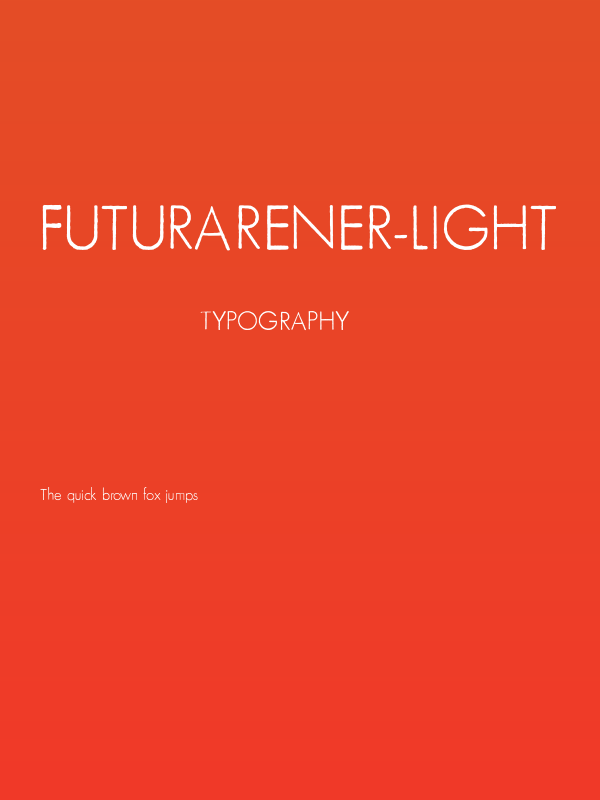
FuturaRener-Light Font
FuturaRener-Light Description
This font features a clean, geometric design with a modern aesthetic. The characters are constructed with a uniform stroke width, giving it a sleek and minimalist appearance. The uppercase letters are tall and narrow, while the lowercase letters maintain a consistent height, contributing to a balanced and harmonious look. The numerals are clear and legible, matching the overall style of the alphabet. Special characters are well-integrated, maintaining the geometric theme. This font is versatile, suitable for a variety of design applications where clarity and modernity are desired.